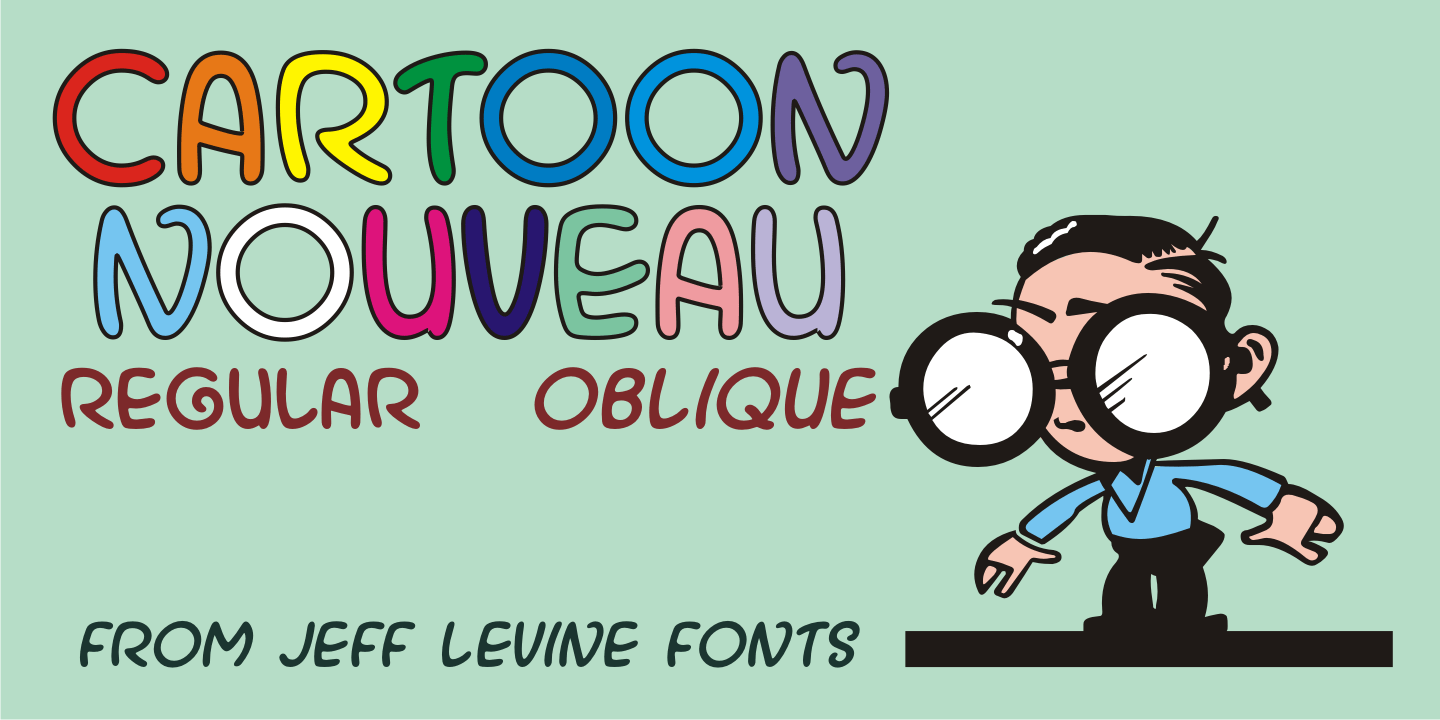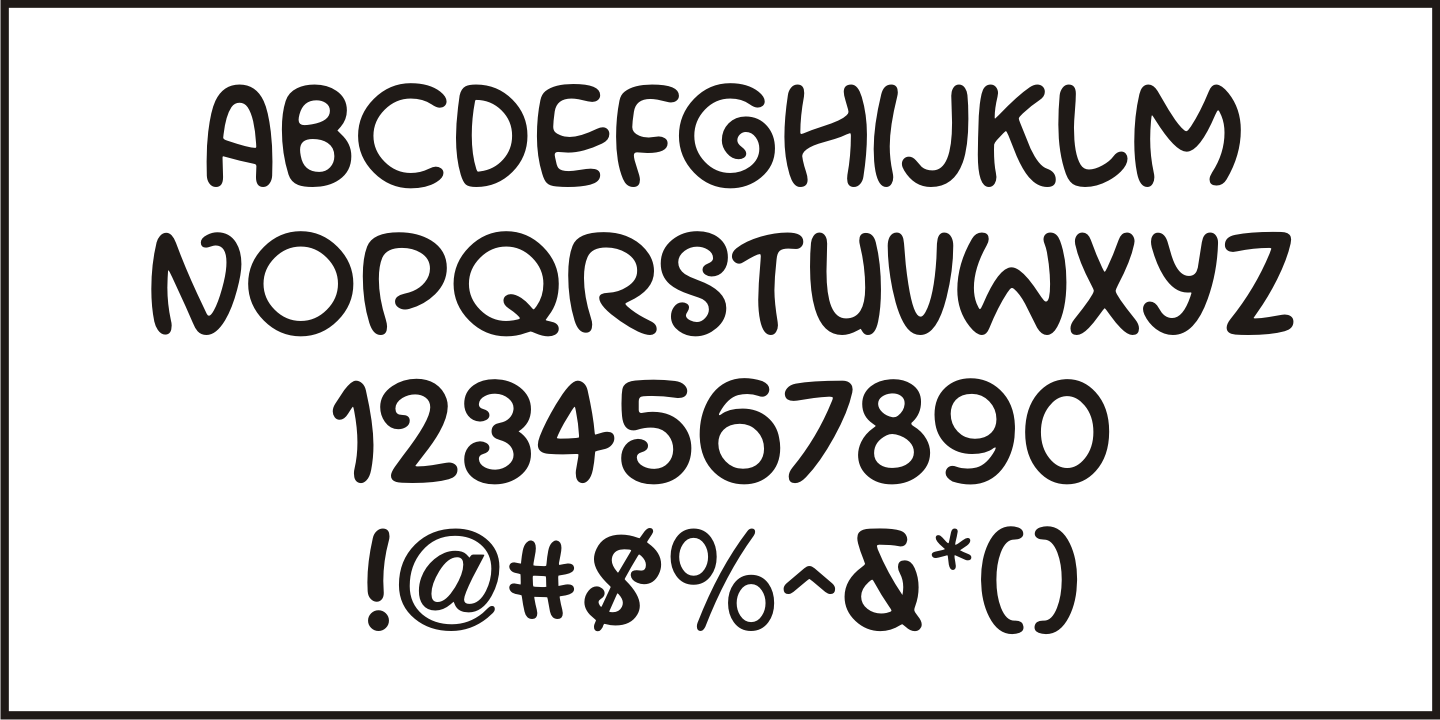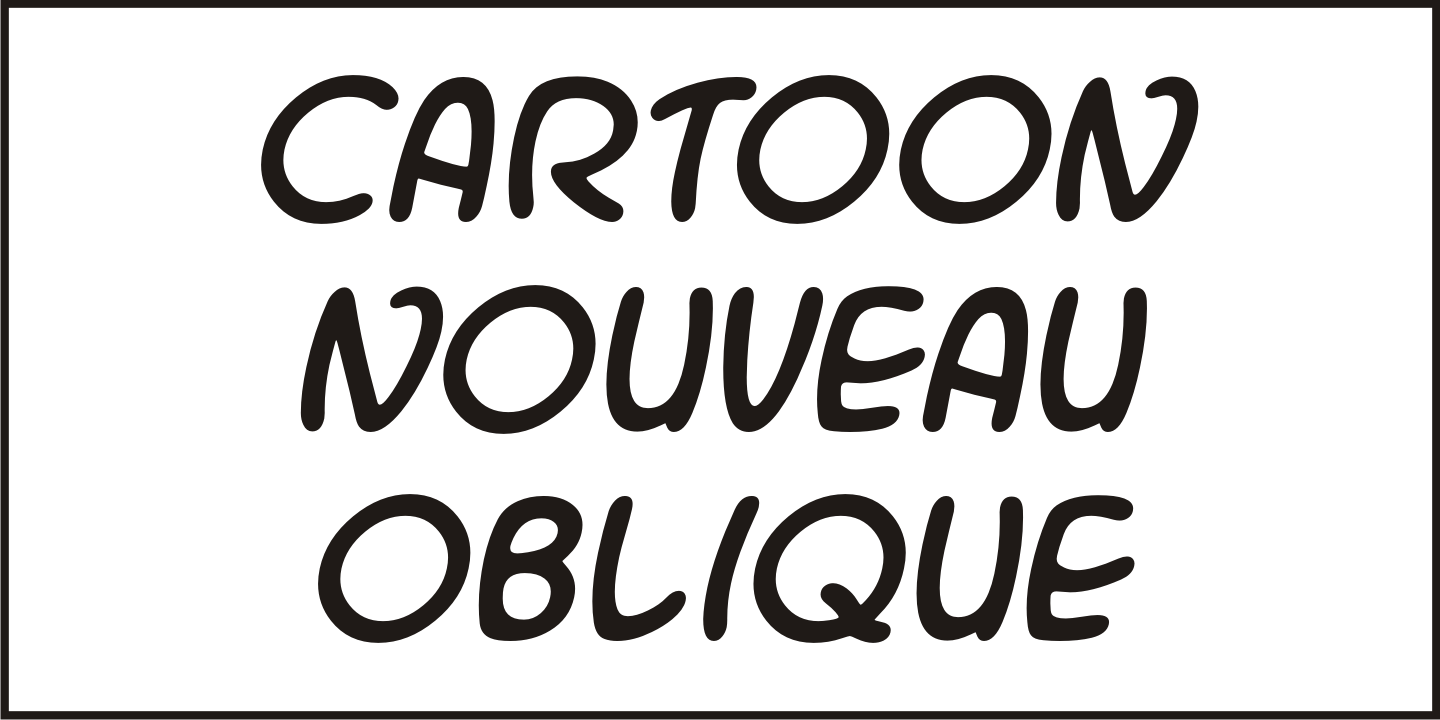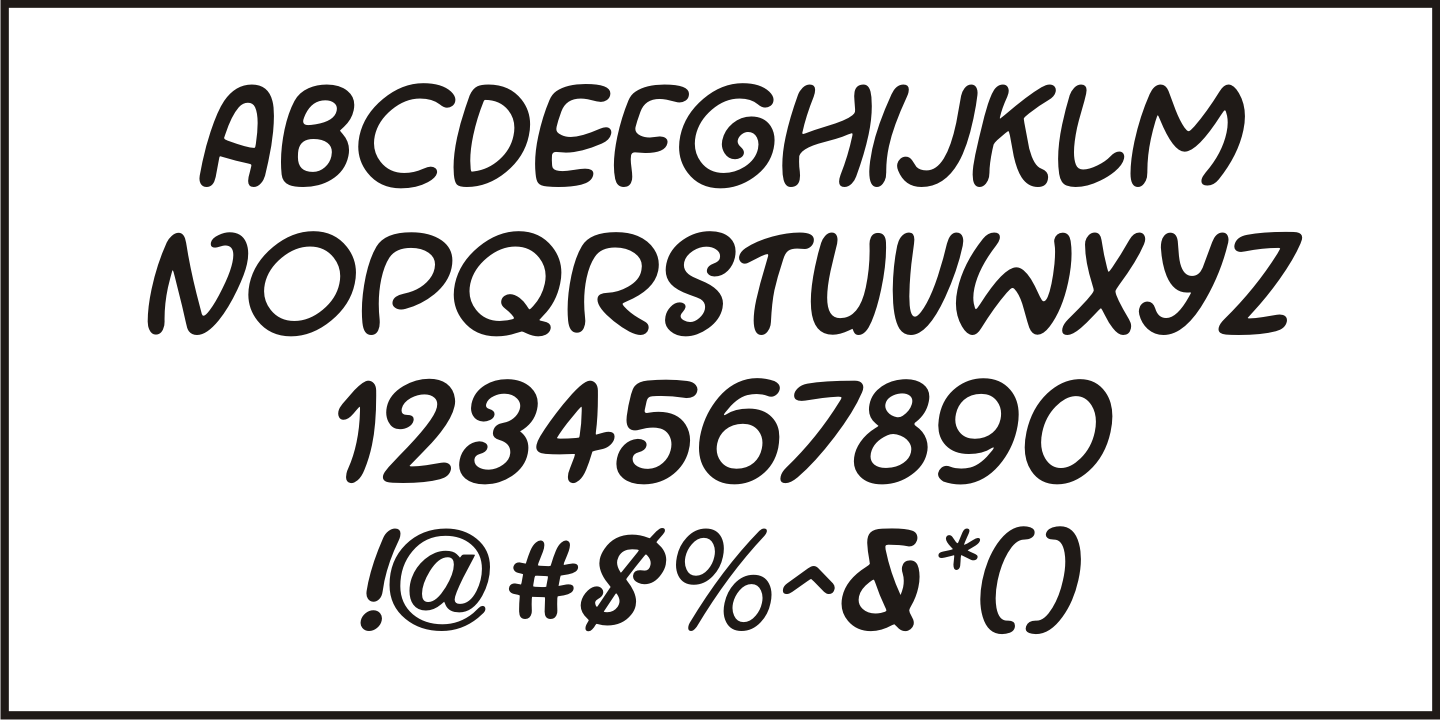
Cartoon Nouveau
Most of the lettering on a piece of sheet music for a song from the 1921 George M. Cohan musical comedy entitled 'The O'Brien Girl” was hand lettered in a playful, casual Art Nouveau design with rounded ends.
The characters on that page took on a look reminiscent of cartoon or comic strip wording, and the result is a digital typeface named Cartoon Nouveau JNL, which is available in both regular and oblique versions.
Cartoon Nouveau by Jeff Levine Fonts